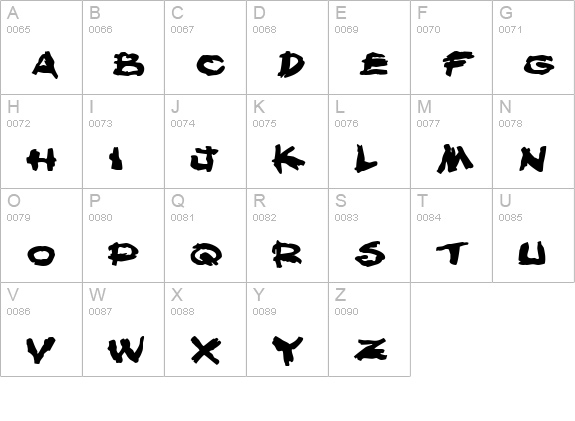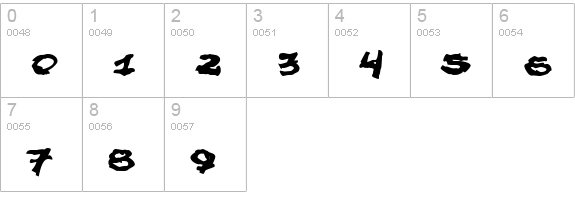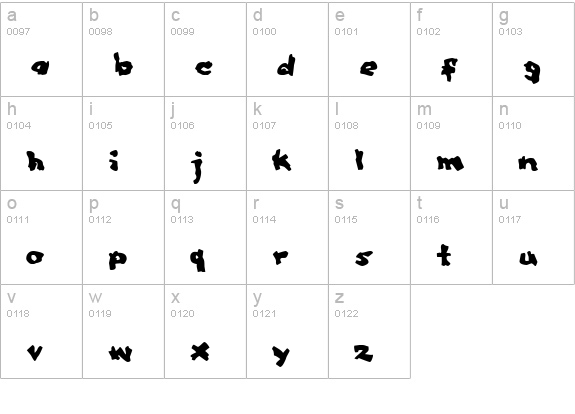
Famous fromage Font Details
Introducing the Famous Fromage Font, a stunning and versatile typeface that will add a touch of elegance and sophistication to any design project. This font exudes a sense of charm and class, making it perfect for a wide range of applications, from branding to editorial design. With its unique and eye-catching design, the Famous Fromage Font is sure to make a statement and capture the attention of your audience. Whether you're designing a logo, creating a poster, or crafting a social media graphic, this font will elevate your work to the next level. One of the best things about the Famous Fromage Font is that it is completely free to download at FontsMarket.com. That's right, you can access this beautiful font at no cost, making it an excellent choice for designers on a budget or anyone looking to add a touch of sophistication to their projects without breaking the bank. Don't miss out on the opportunity to enhance your designs with the Famous Fromage Font. Download it now and let your creativity shine!